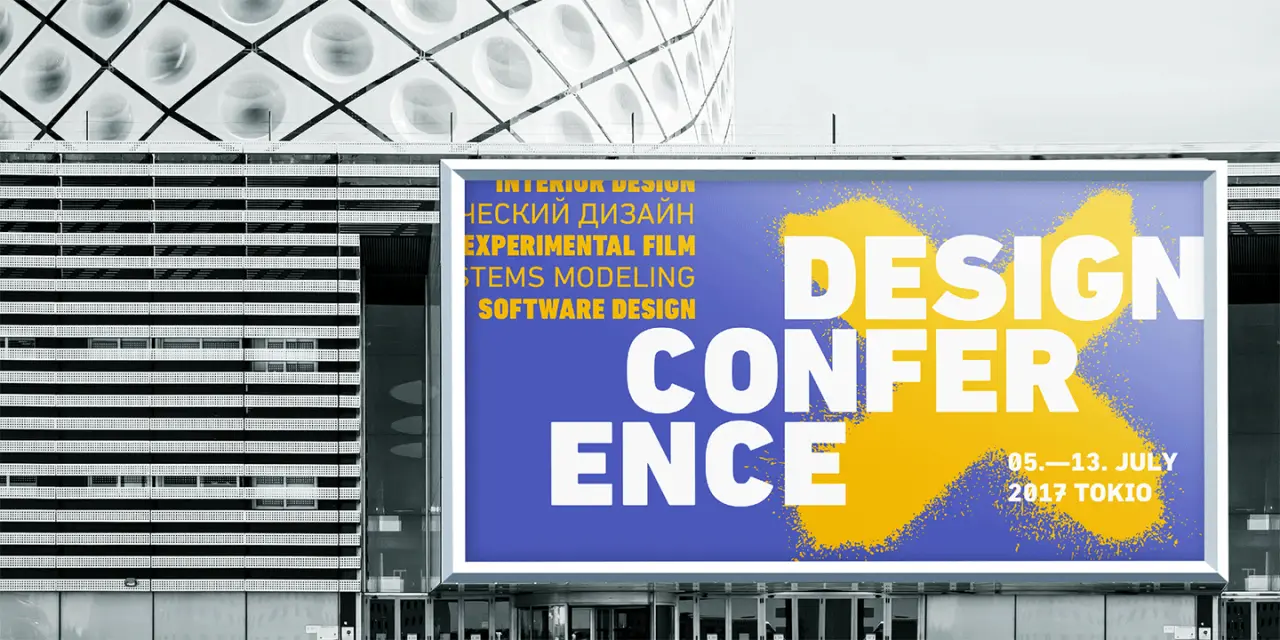
Top 20 fonts that will be popular with designers in 2020
It's been an incredible year for type lovers everywhere. With more independent foundries launching than ever before and the industry's established names pumping out fresh specimens each month, there's never been a better time to find the right fonts for your projects.
Untitled Sans by Klim. Design by Holt
As we start to review another year at Creative Boom, we've done a little research to uncover the top 20 typefaces that are proving popular with graphic designers and those we think will be a big hit in 2020.
From sans serif and slab to serif and display, we've thrown in some existing well-known fonts as well as brand new contenders – all designed to give your work that edge you've been looking for while maintaining essential clarity and readability.
1. Helvetica Now
One of the biggest stories of 2019 was when Monotype introduced its Helvetica Now typeface. Produced from size-specific drawings and with size-specific spacing, it was the first redesign in 35 years of what many argue is the world's most ubiquitous font, Helvetica. Every character has been redrawn and a host of useful alternates have been added to help you meet those modern-day branding challenges. It's proved very popular over the last six months; we think that will only continue.
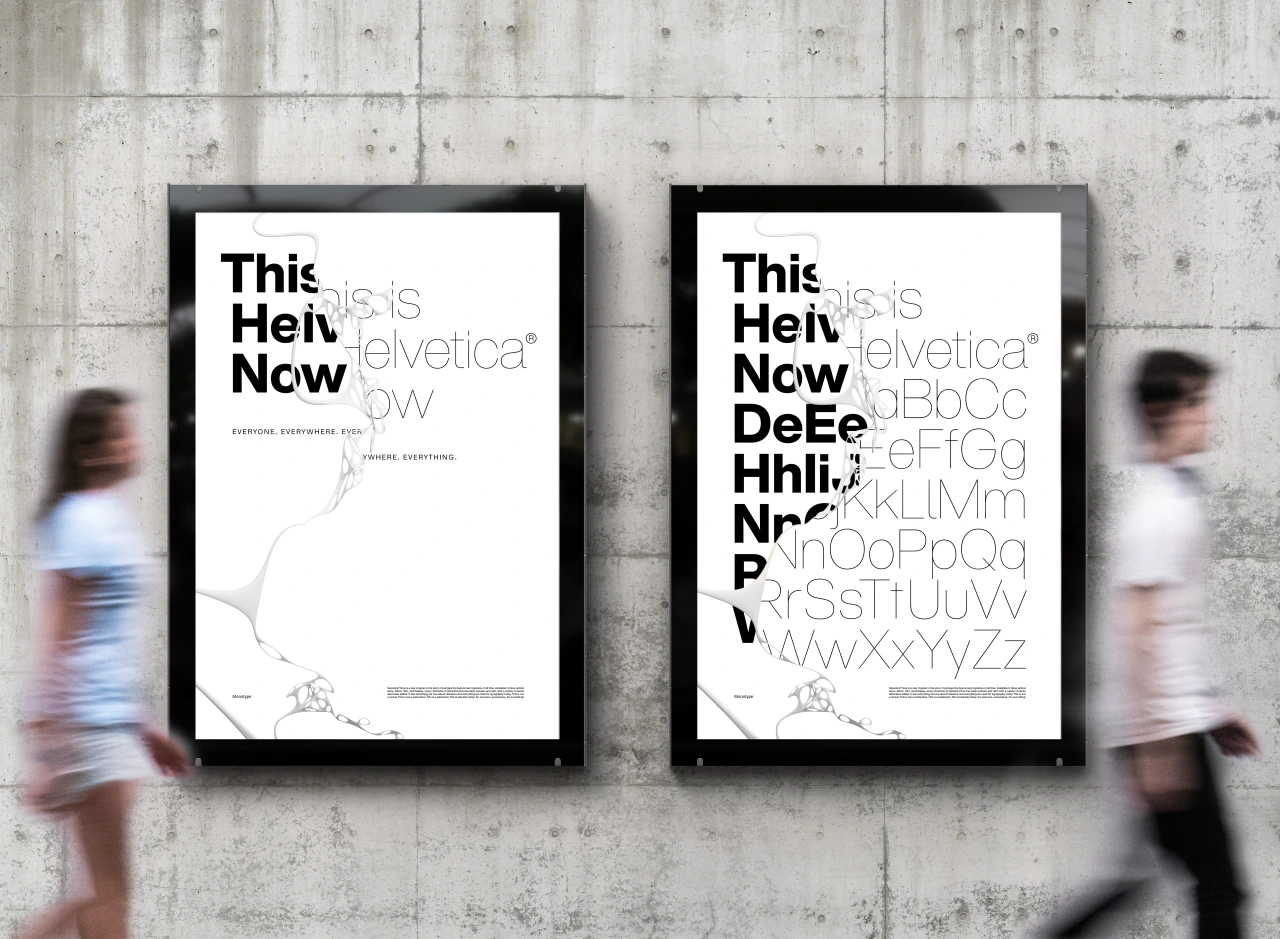
Helvetica Now by Monotype
2. Aeonik
Mark Bloom of Mash Creative has just launched his own foundry, CoType, after years of creating his own font families. We love Aeonik. Described as a "structural workhorse, crafted with mechanical detail", it's conceived as a "neo-grotesque with a geometric skeleton" and comes in seven weights and italics, so you can get full use out of the family.
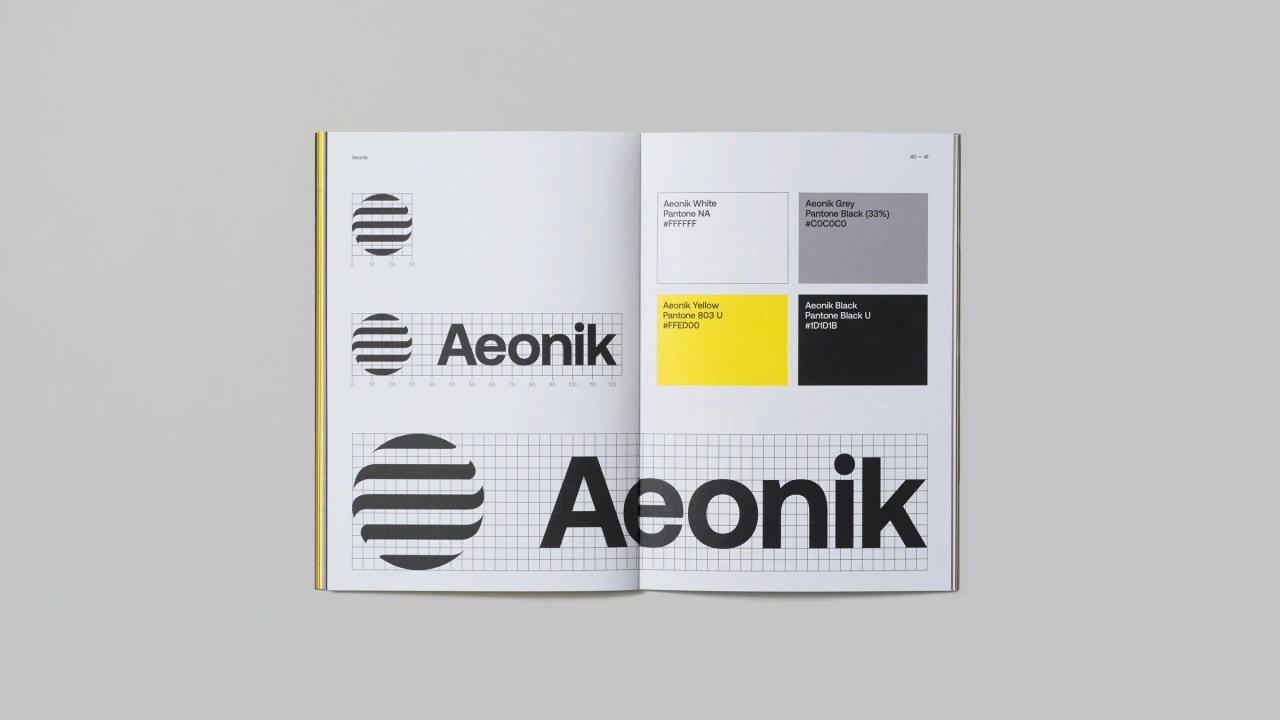
Aeonik by CoType
3. NewsSans
Content continues to be king. And it's going nowhere in 2020. Which is why we love Character Type's latest typeface system, NewsSans. Incorporating no fewer than 90 styles, it allows you to create a varied typographic look, effortlessly ranging from loud and expressive, to subtle and reserved. The large x-height combined with low ascenders and descenders allows for tight and efficient designs. All sharp corners were trimmed off to add character and nuance of extra space.
We especially like how NewsSans’ strokes link humanist curves with 'American Grotesque' details and solid square stems. The system contains nine weights from hairline to black, and five widths from compressed to extended, each accompanied by a proper italic. Free trial fonts are available exclusively via charactertype.com.
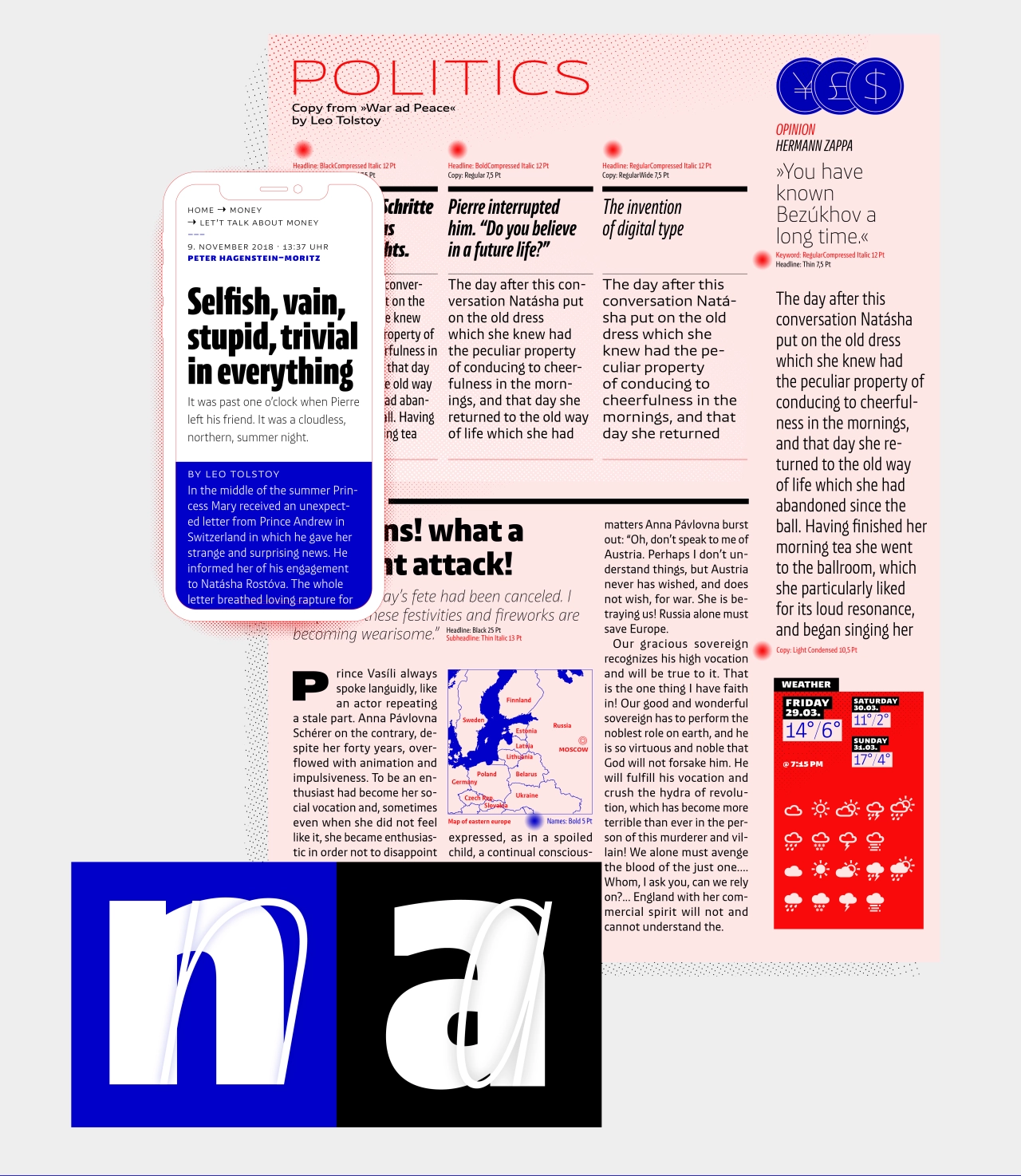
NewsSans by Character Type
4. Beatrice Display
Beatrice is a new kind of typeface by New York foundry, Sharp Type. The family is an exploration of contrast methodologies, combining various aspects from the canon expansionist systems, inverted contrast, and the contrast behaviour of standard sans-serif grotesks.
"These methodologies were dissected and used as cornerstones in building our own system, with the final result landing largely in unexplored territory," explains Sharp Type. "Built on the foundation of a traditional American Gothic but with tight-as-can-be spacing, the superfamily spans a robust set of weights and includes two optical sizes: a super high-contrast, tightly packed Display cut, as well as a standard low-contrast cut, designed to function beautifully in a wide range of optical sizes."
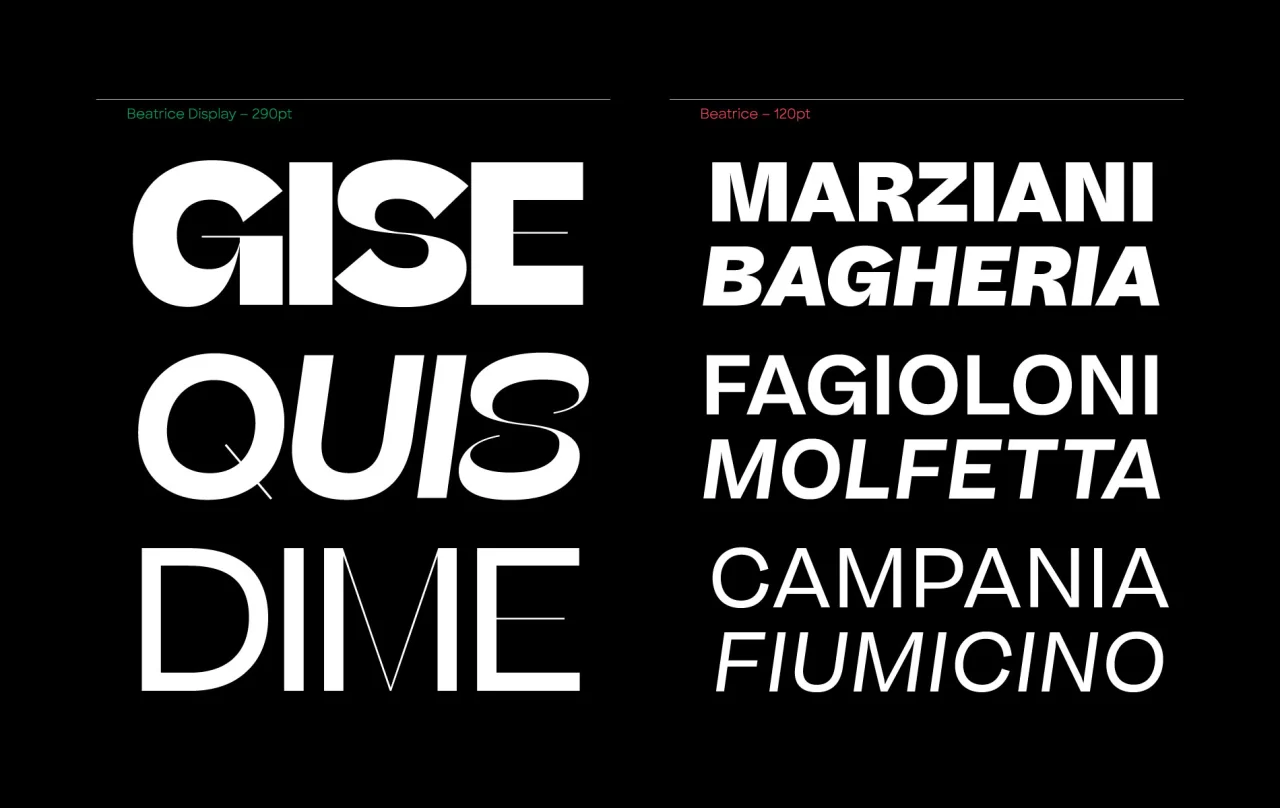
Beatrice Display by Sharp Type
5. Untitled Sans
Brought to you by New Zealand foundry Klim, Untitled Sans is a plain, Neo Grotesk sans validated by the ideas of Jasper Morrison and Naoto Fukasawa’s Super Normal project.
It has the same principles applied to it as its complementary typeface, Untitled Serif, which is drawn from the old-style genre of types: the post-Caslon, pre-Times workhorses offered by almost every metal type foundry of the time. This is a typeface we're seeing again and again.
Untitled Sans by Klim. Design by Holt
6. Gilroy
Gilroy is a modern sans serif with a touch of geometry. Designed by Radomir Tinkov, it's a younger brother of the original Qanelas font family and comes in 20 weights and 10 uprights with matching italics. Rather wonderfully, the Light & ExtraBold weights are free of charge, so you can use them to your heart’s content.
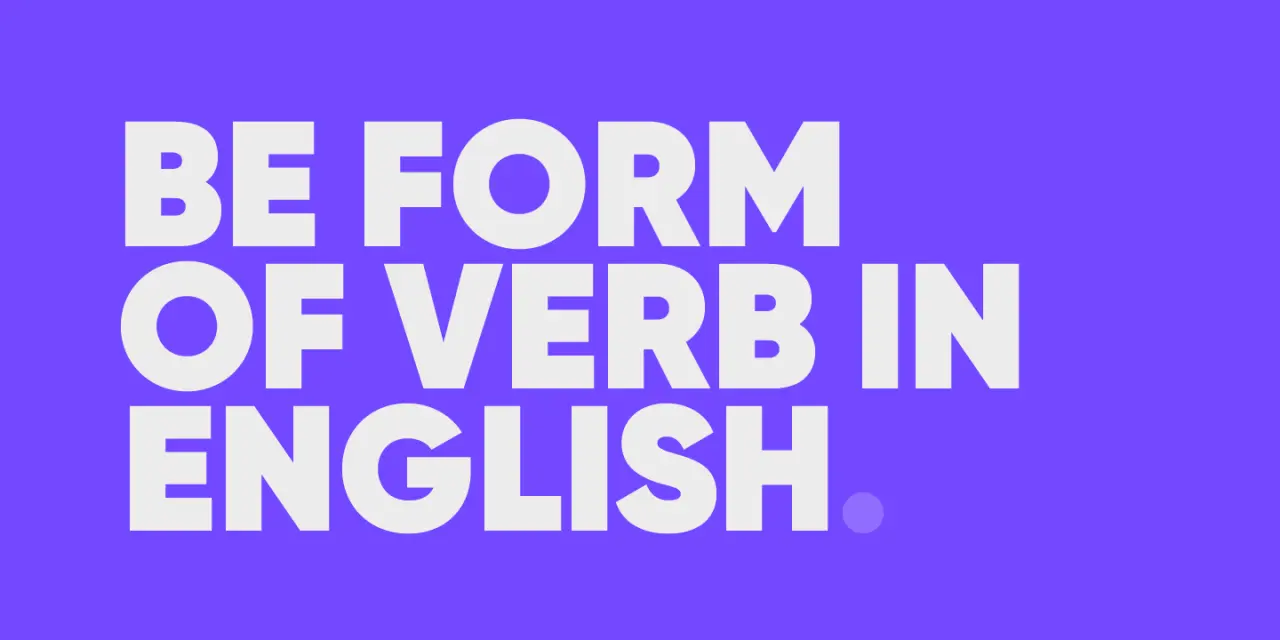
Gilroy by Radomir Tinkov
7. DIN Next
DIN is that classic typeface you always root for – the one you want to use but just can't bring yourself to because it's limited in its range of weights and widths. The century-old design has proven to be timeless, but it needed a modern update. That's where DIN Next steps nicely in – a versatile sans serif family that will never go out of style.
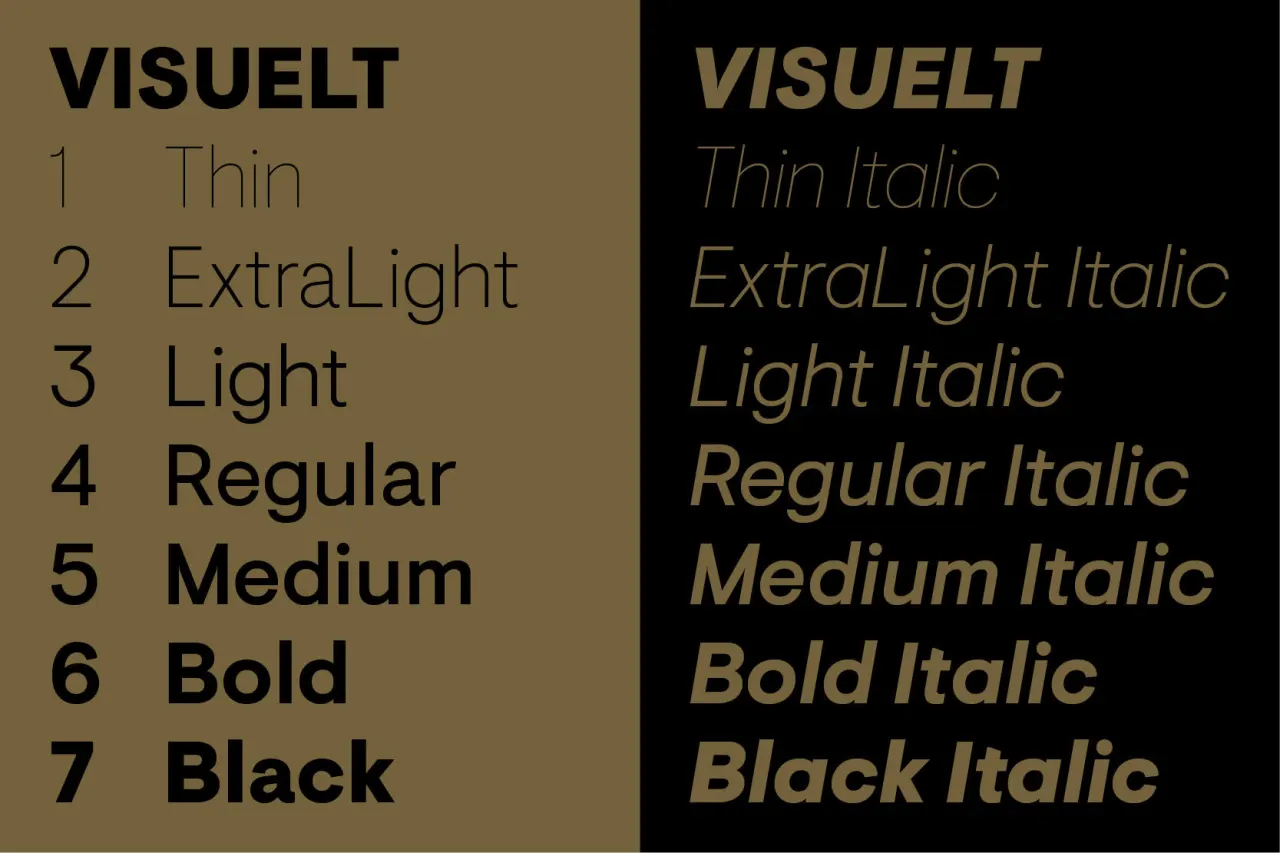
Visuelt by Colophon
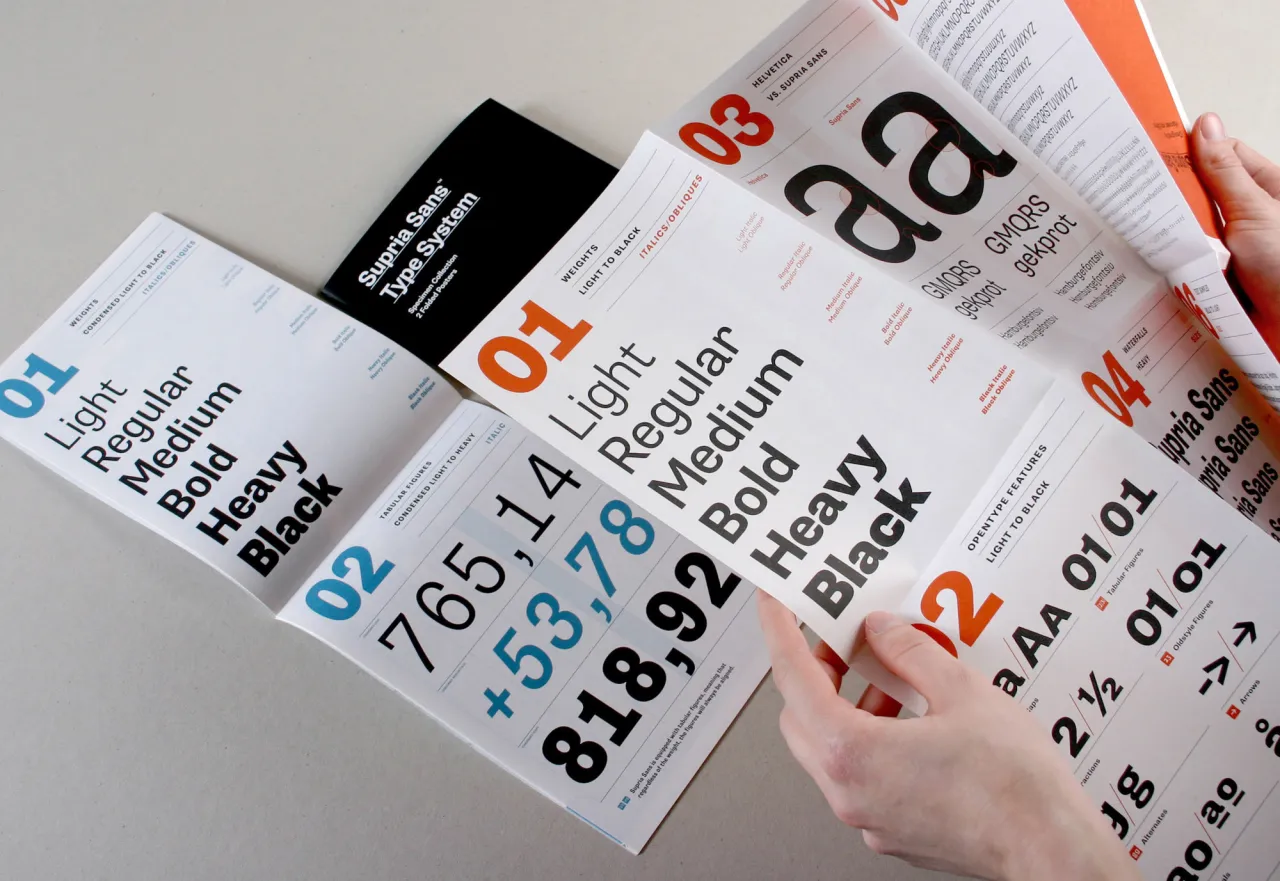
. In use by [Garbett](https://garbett.com.au/) for Career Trackers](https://media.creativeboom.com/514ca61a-e599-4ae7-bed3-a107421ce0f3/conversions/e8ba48815e7898e3d263f3452e50572efdb4fd9a-medium.webp)
using Obviously by Oh No Type Co., Art Director, Brand & Creative—Spotify](https://media.creativeboom.com/e140cc20-db14-429b-b265-64f190084daf/conversions/647a253986d9ff739b61d8421eebd46baca5cf40-medium.webp)